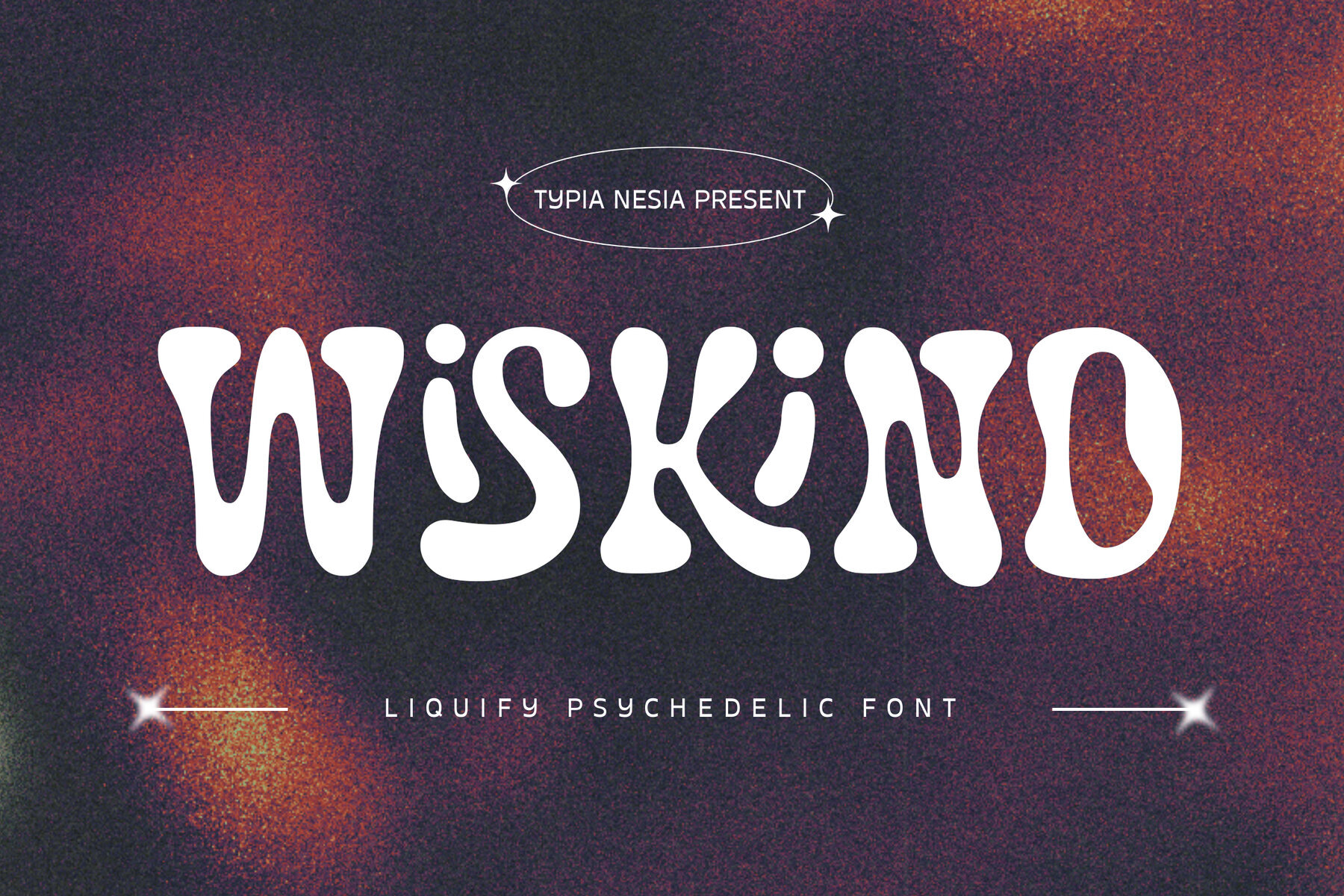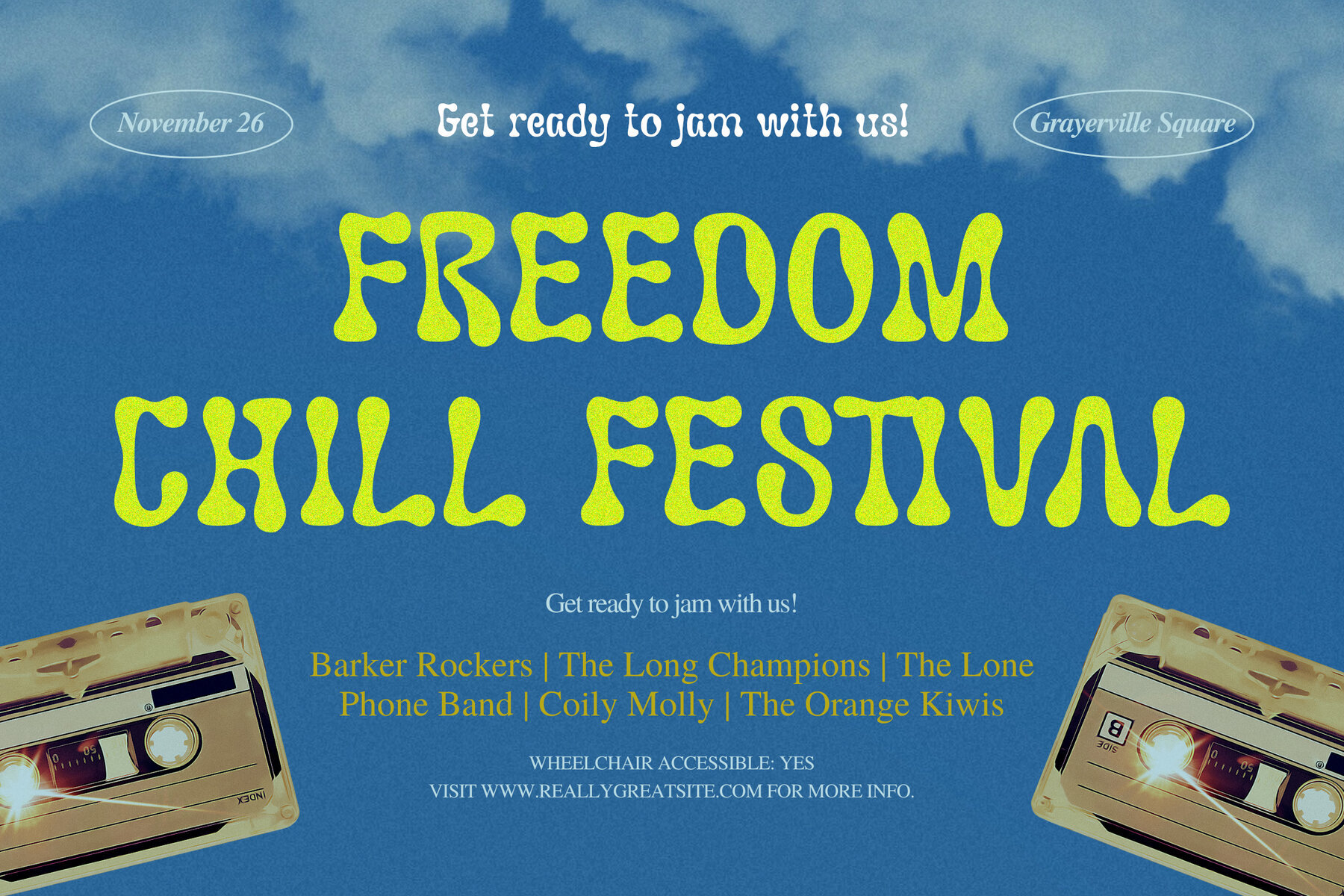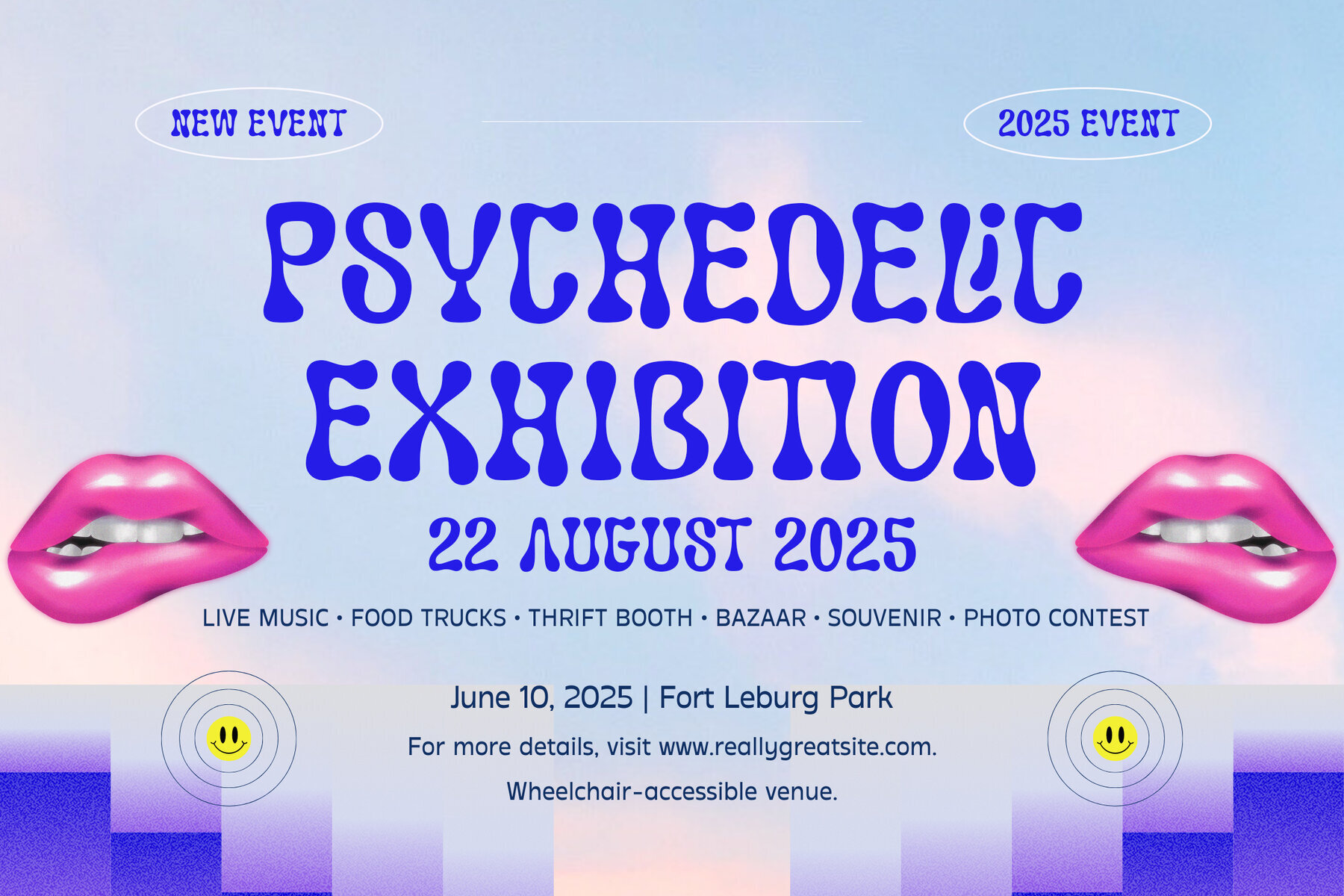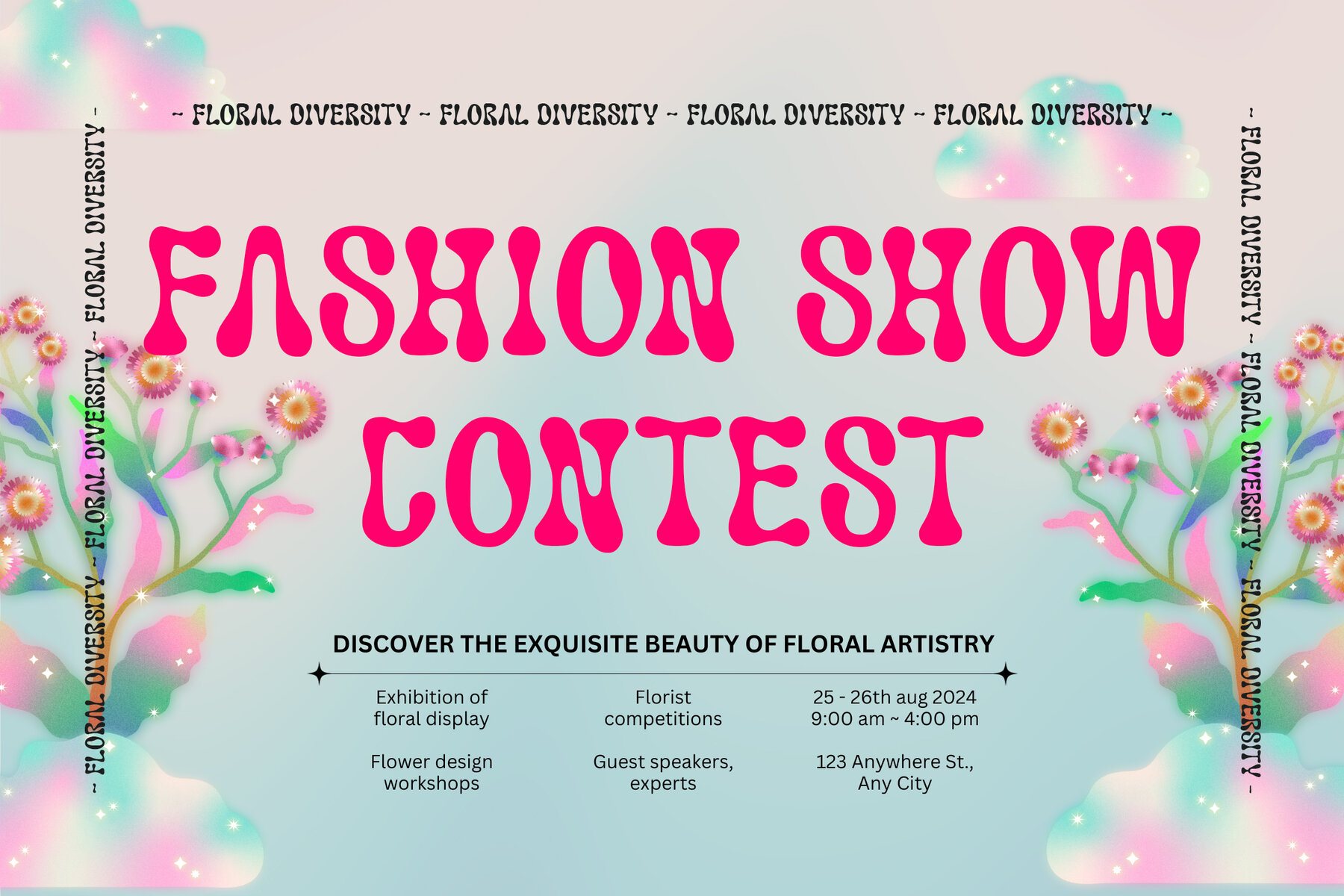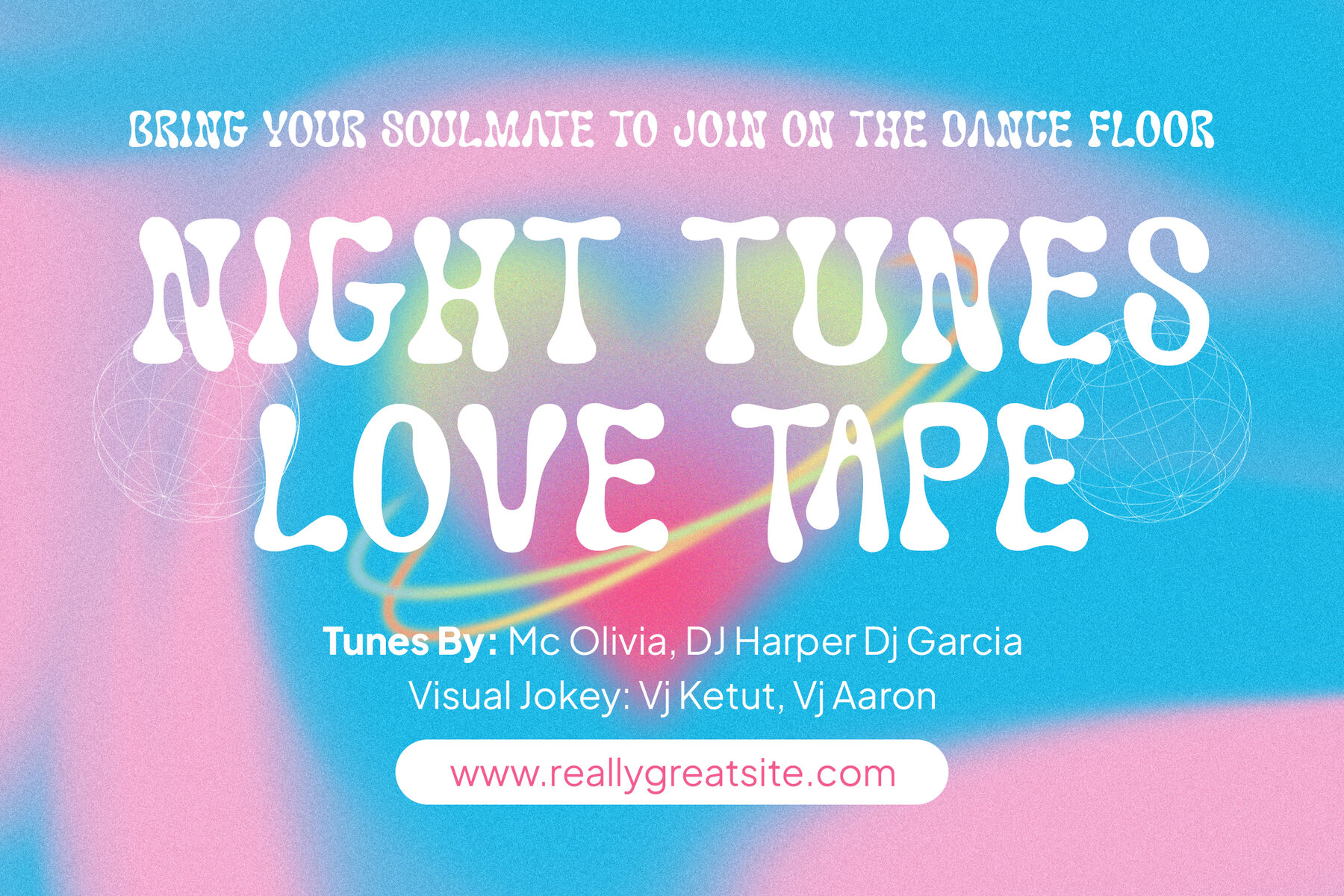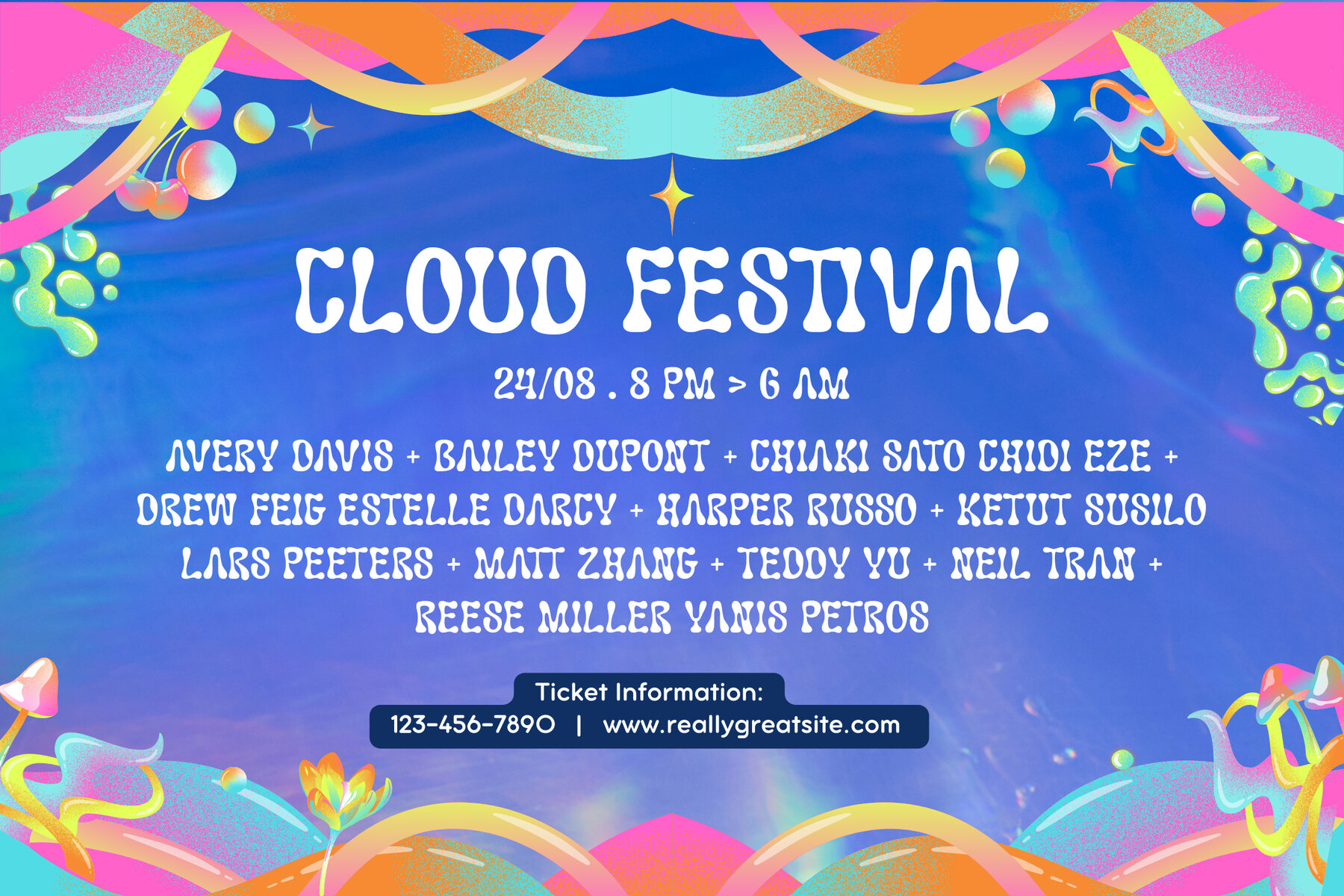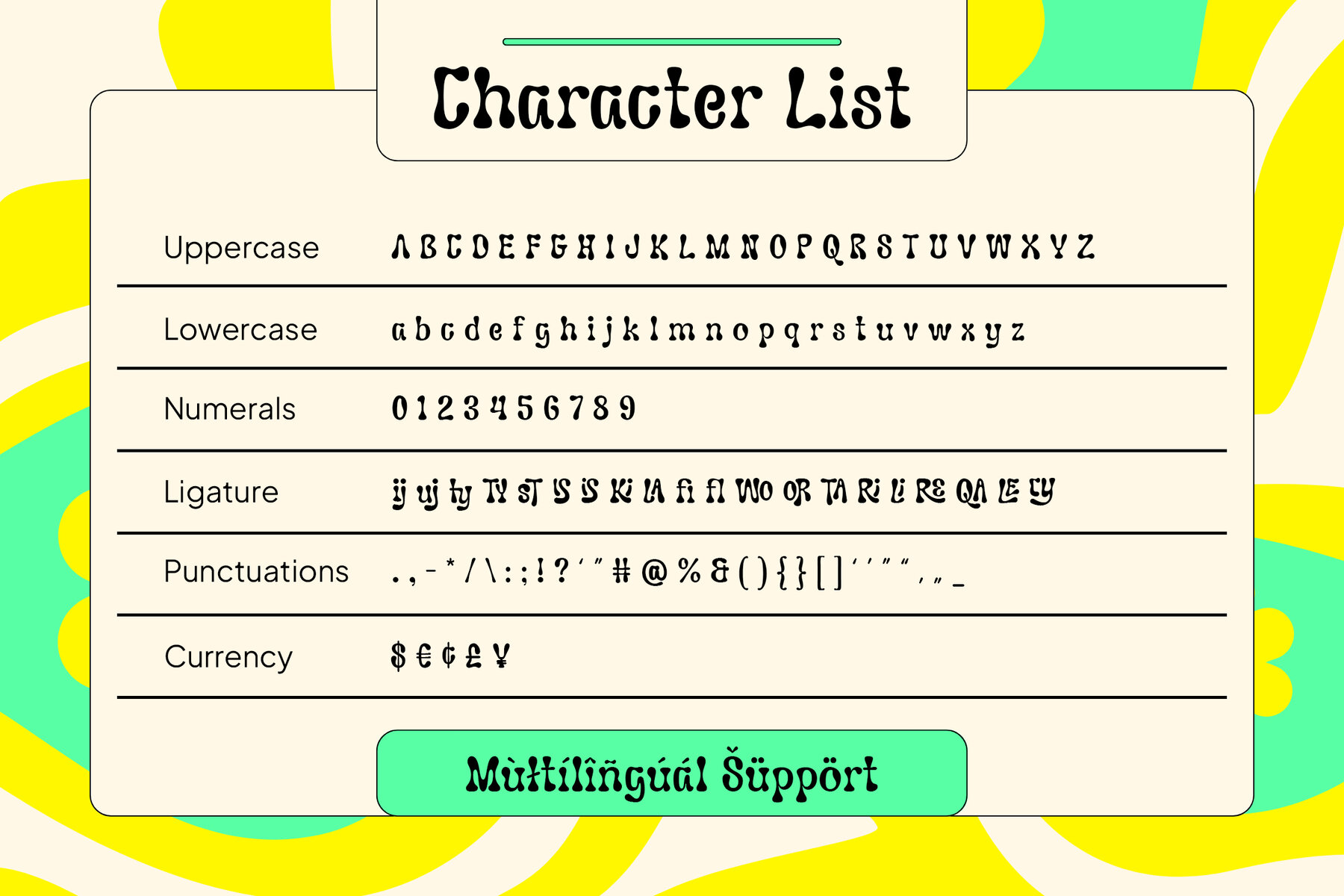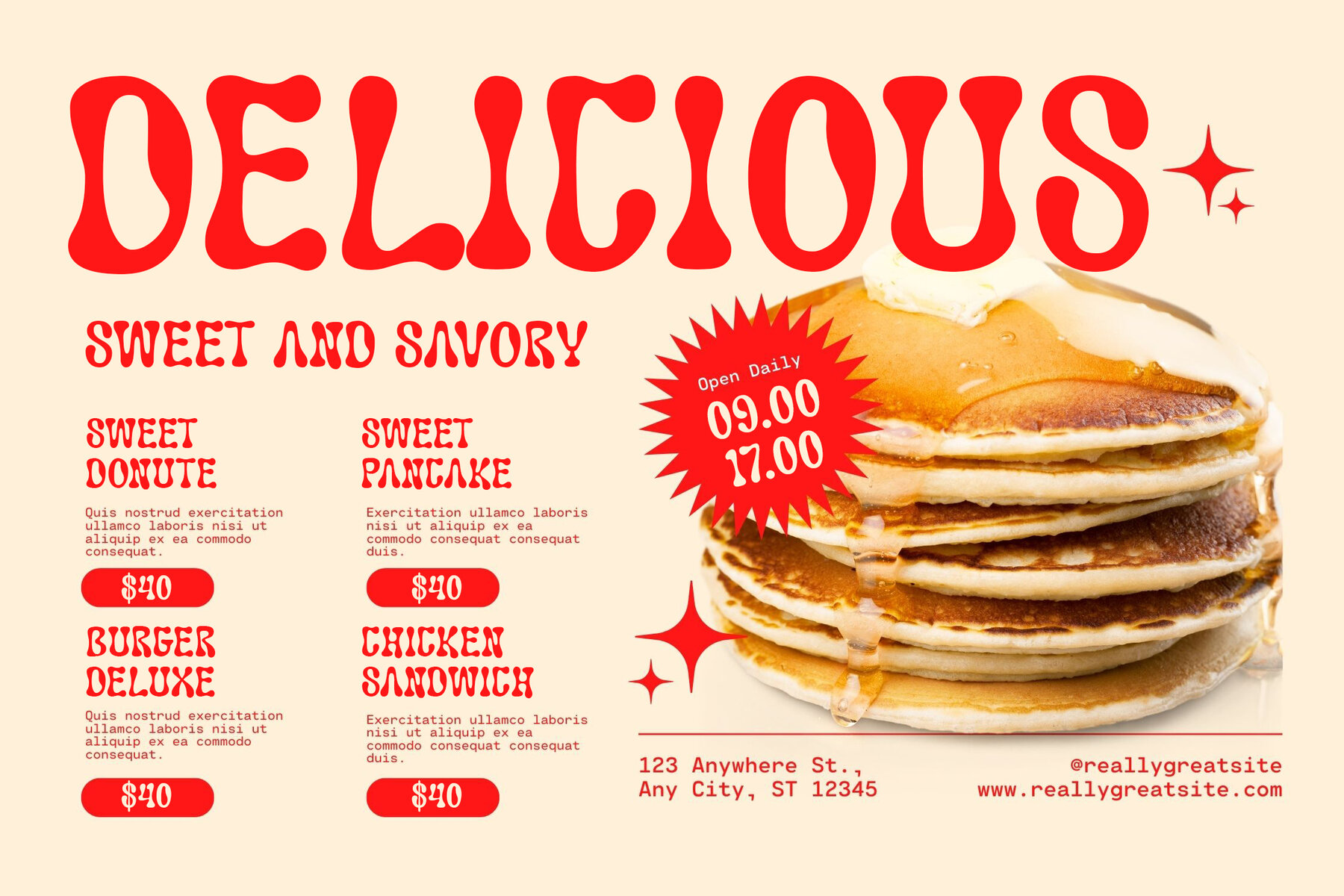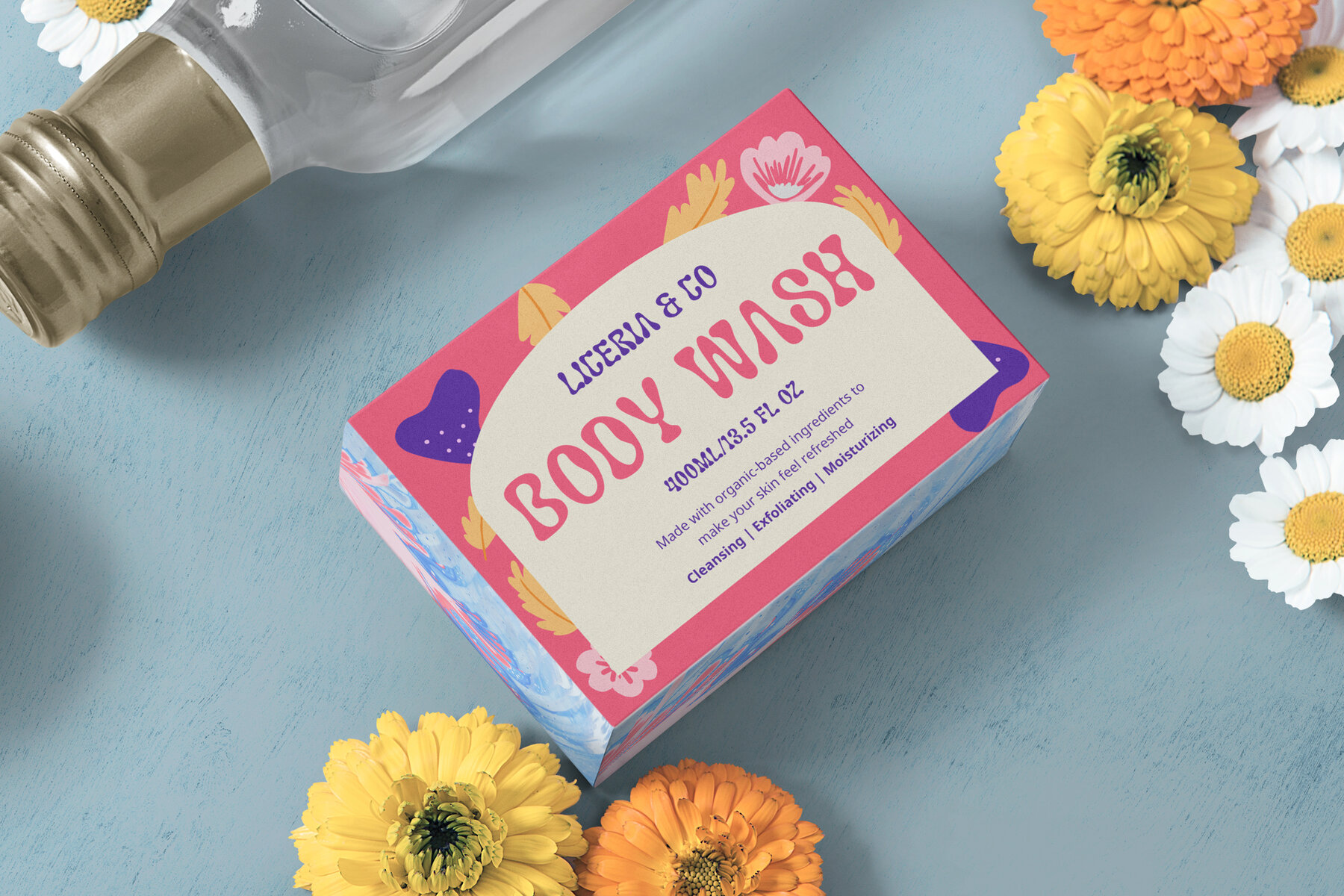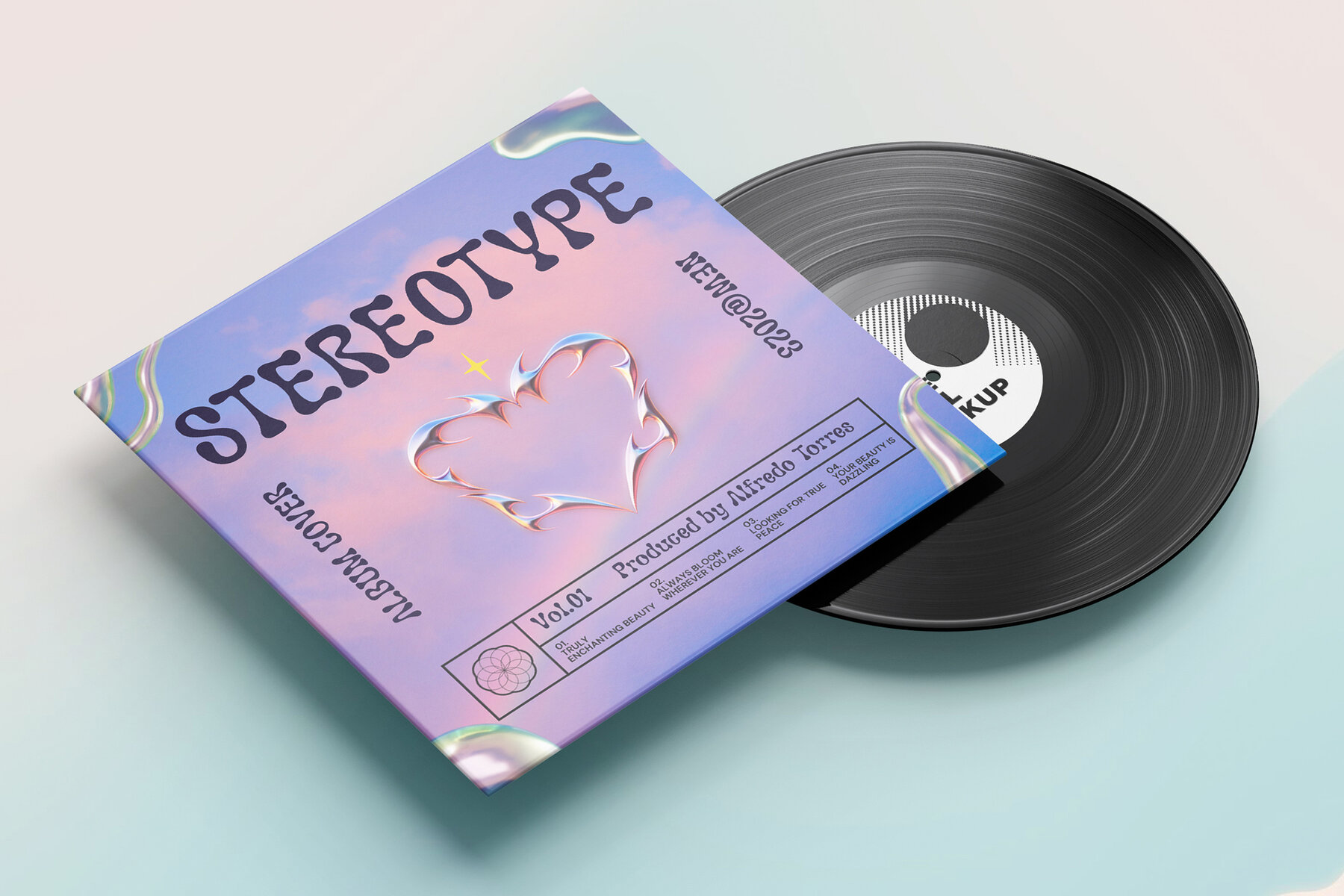
Wiskind Font
Wiskind Regular
Wiskind embraces a captivating Liquify Psychedelic Font, seamlessly merging fluidity and vibrancy in its design. The font radiates a dynamic and surreal aesthetic, making it ideal for projects seeking a visually engaging and unconventional typographic style. Tailored for creative projects that demand an avant-garde touch, Wiskind is perfect for psychedelic art, music posters, album covers, and any design where an expressive, fluid font can elevate the visual impact. Wiskind boasts the inclusion of ligatures, enhancing the fluidity and coherence of characters. Ligatures are artistic connections between letters, adding a distinctive touch to the overall design. Crafted with precision by typographic experts, Wiskind demonstrates a deep understanding of the fusion between liquify effects and psychedelic elements, offering a font that transcends traditional boundaries.